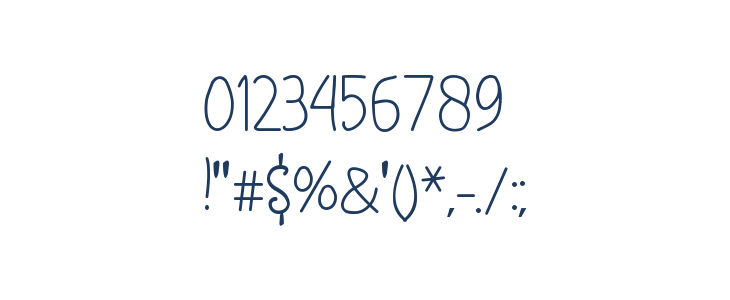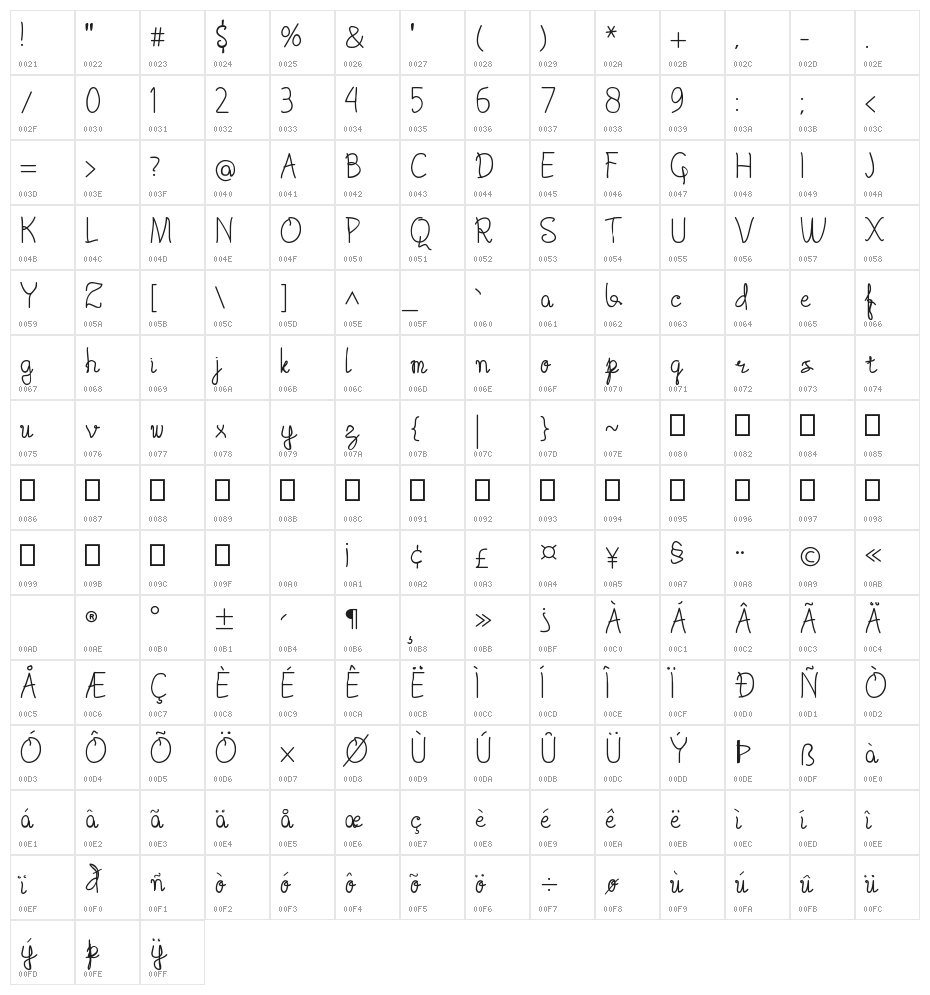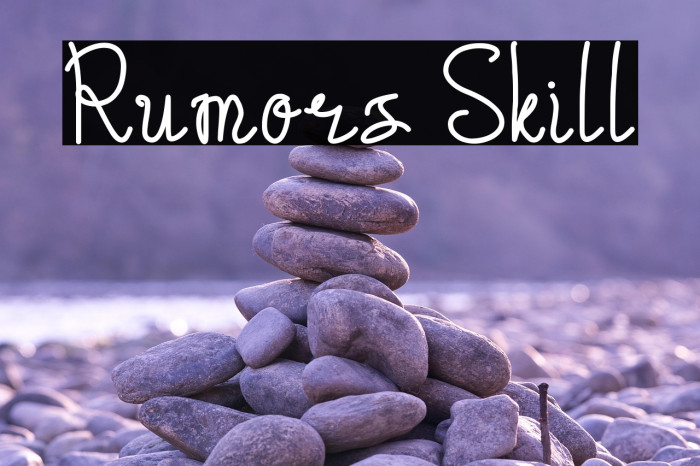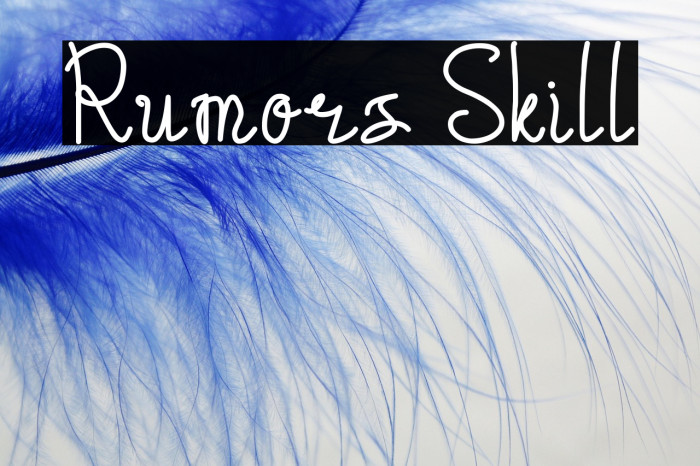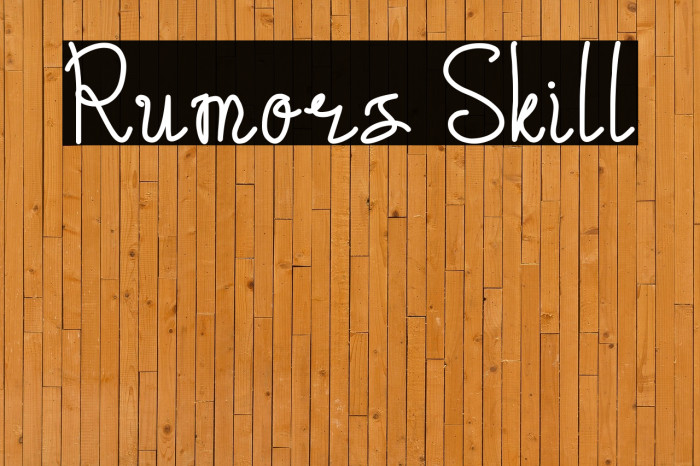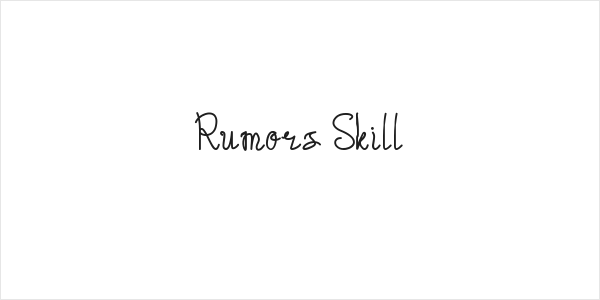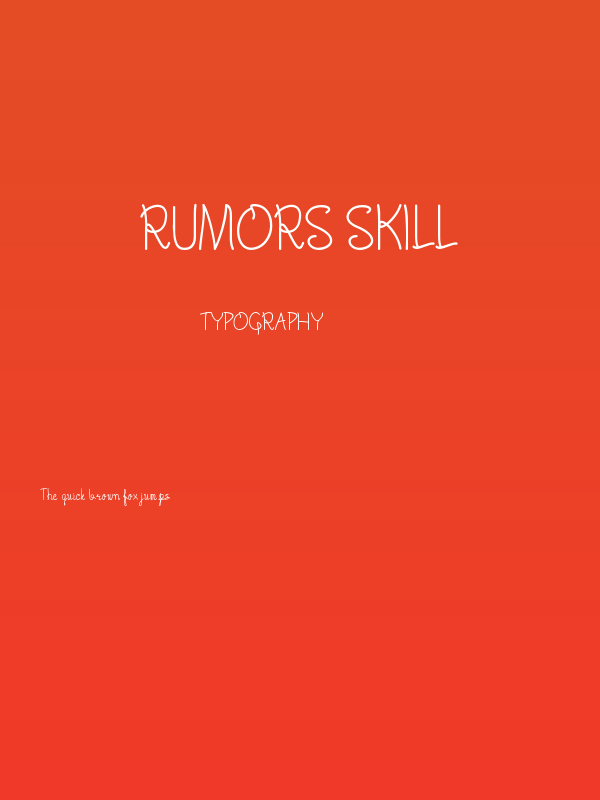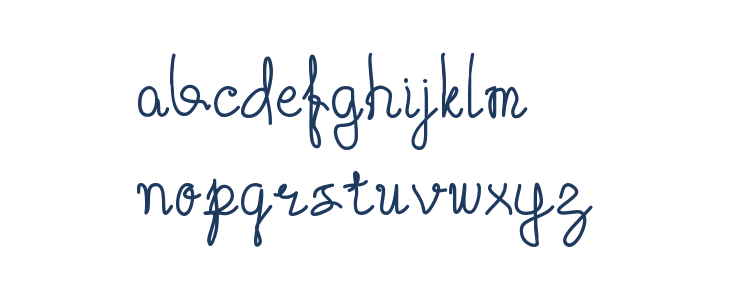
Rumors Skill Font
Rumors Skill Description
This font features a playful and whimsical handwritten style, characterized by its fluid and dynamic strokes. The uppercase letters are tall and slightly narrow, with a casual, informal appearance. The lowercase letters maintain a consistent flow, with some characters exhibiting unique loops and curves that add to the font's charm. The numerals are clear and legible, matching the overall playful aesthetic. Special characters are creatively designed, maintaining the font's lively and engaging feel. This font is perfect for projects that require a personal touch or a sense of fun and creativity.